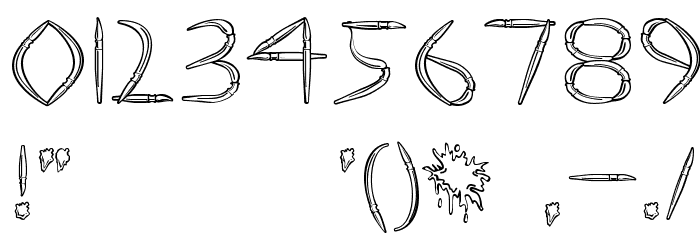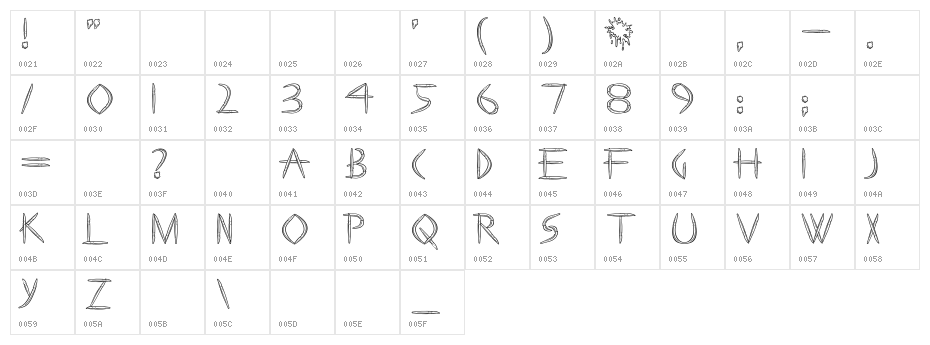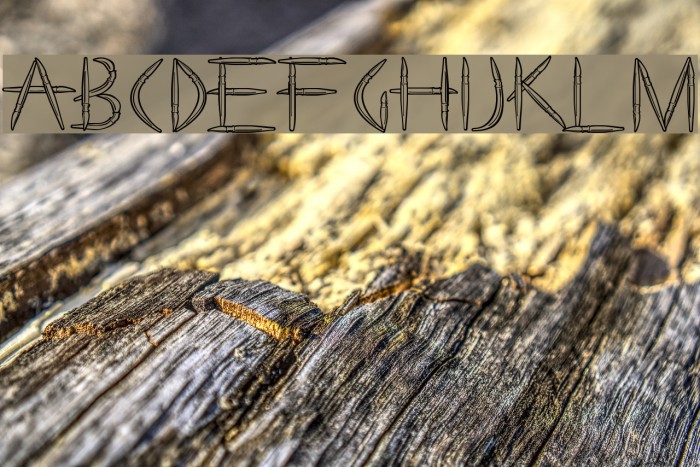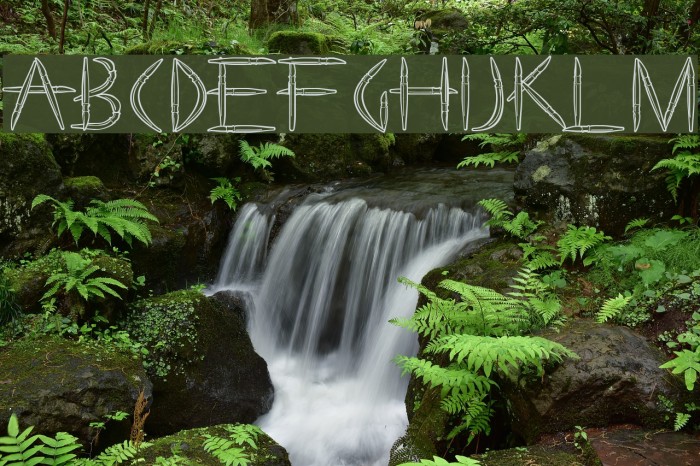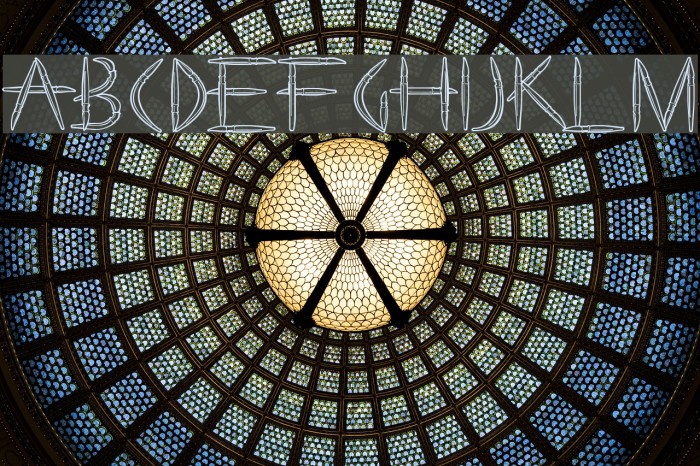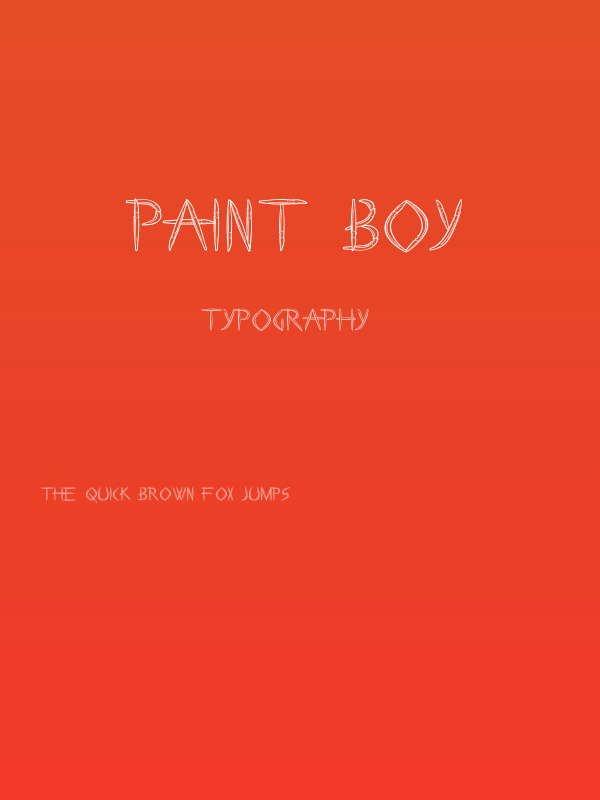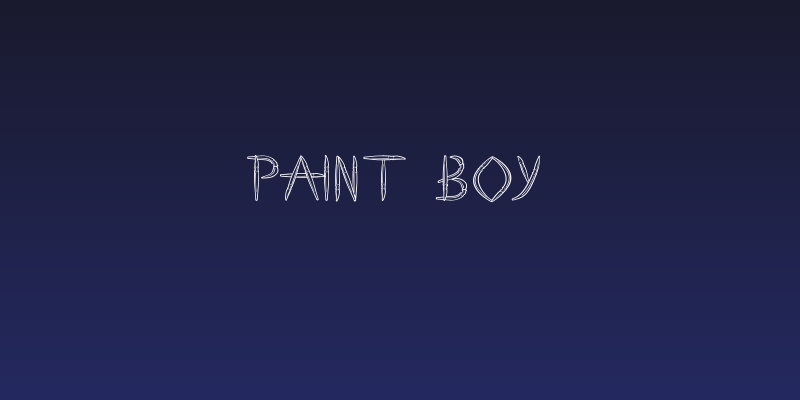
Paint Boy Font
Paint Boy Description
This font features a playful and artistic design, reminiscent of brush strokes or paint splatters. Each character is crafted with a unique, hand-drawn style that gives it a dynamic and energetic appearance. The strokes vary in thickness, creating a sense of movement and fluidity. The uppercase and lowercase letters maintain a consistent aesthetic, with rounded edges and a slightly irregular form that adds to the whimsical charm. Numbers and special characters follow the same artistic theme, making this font suitable for creative and informal projects.
| Overall Style | Artistic, Whimsical |
| Use Case | Headlines, Logos, Creative projects |
| Proposed Projects | Ideal for art-related projects, children's book covers, playful branding, and creative posters. |